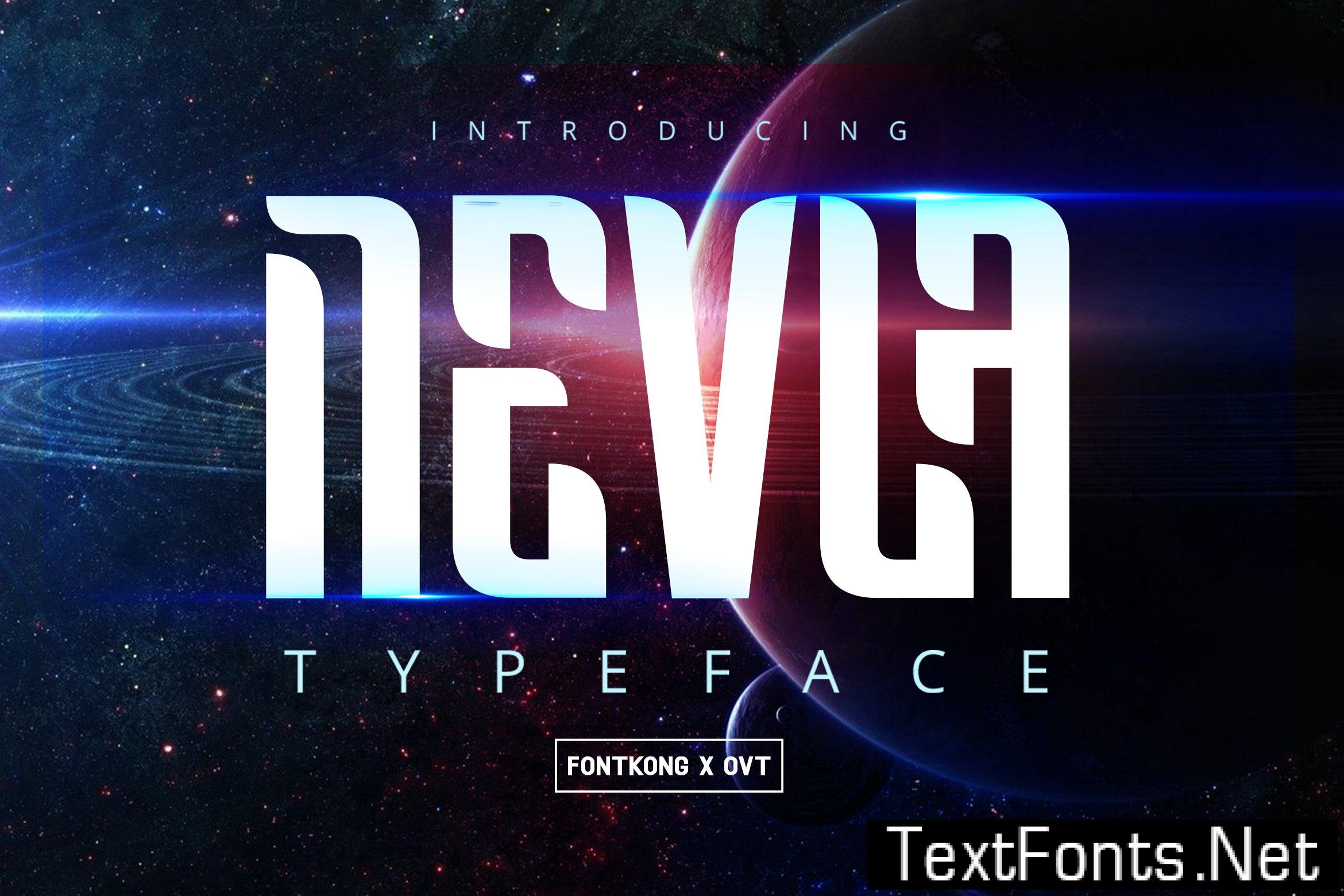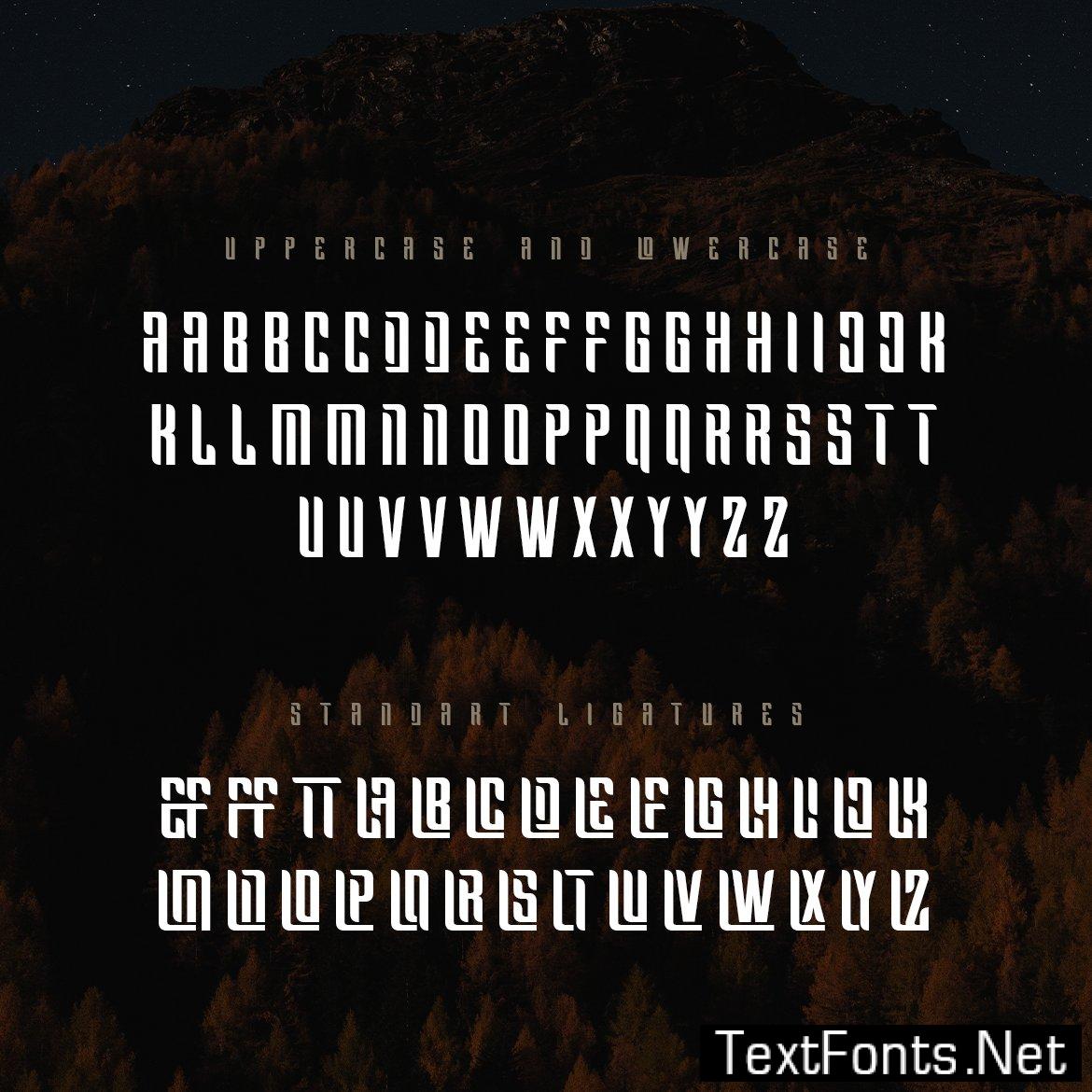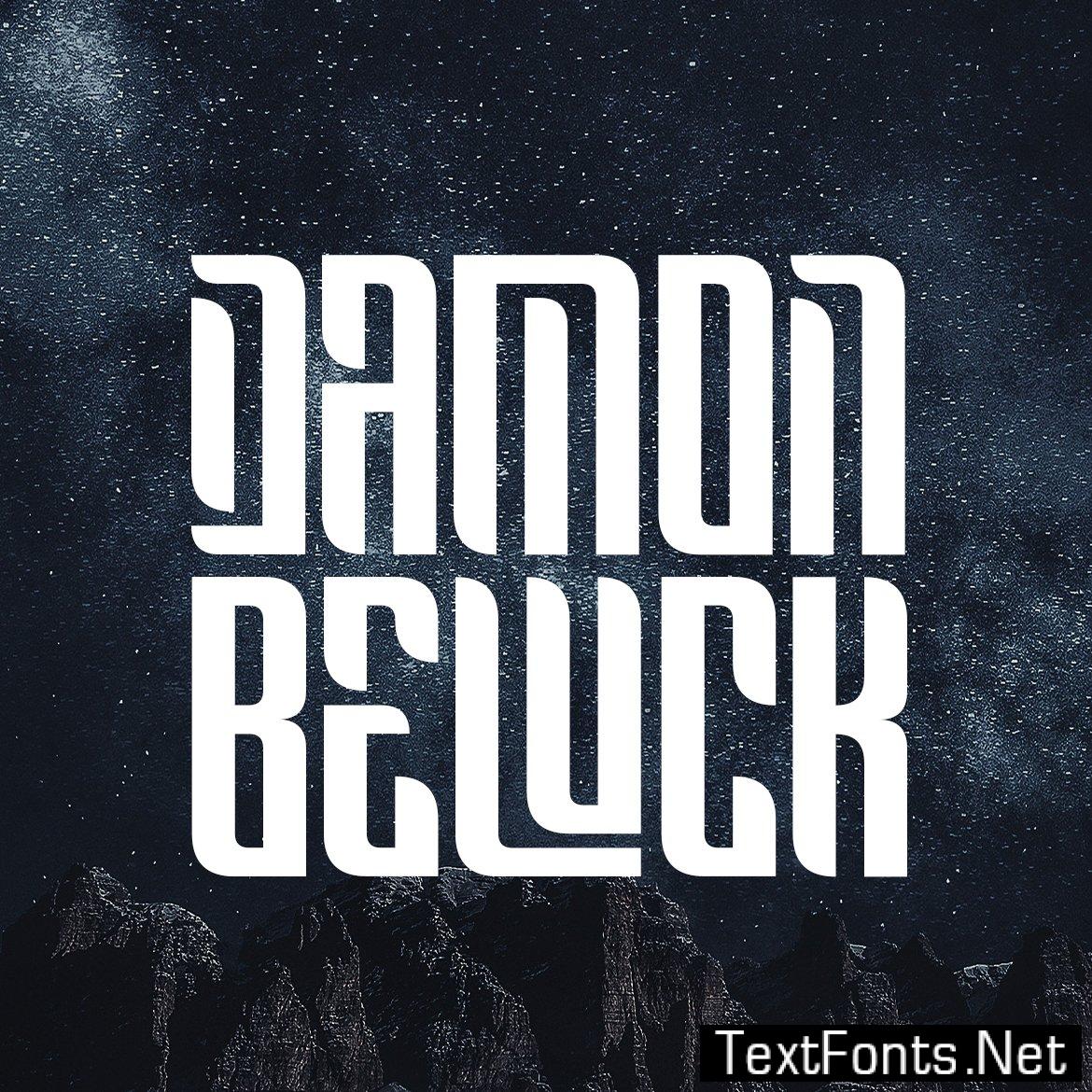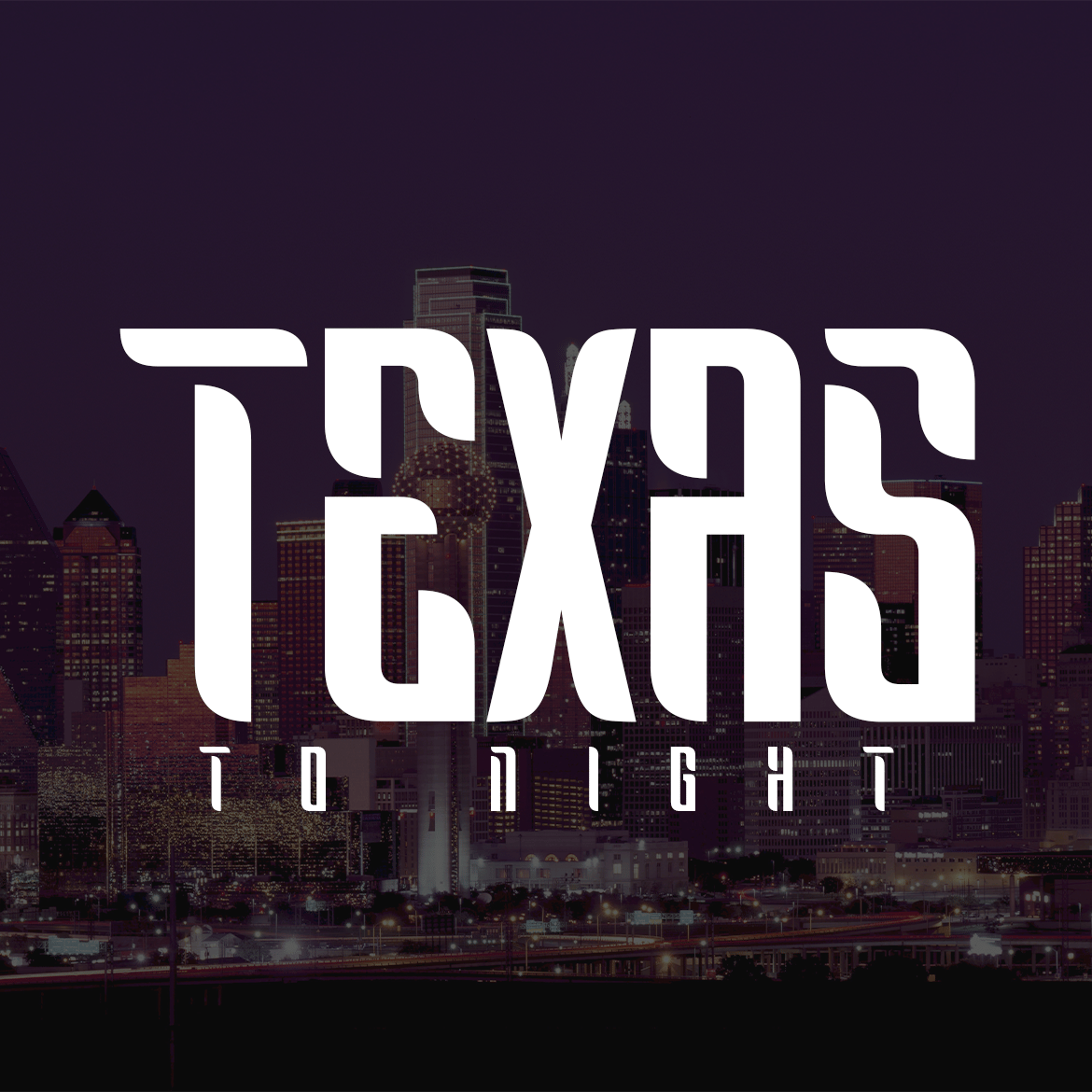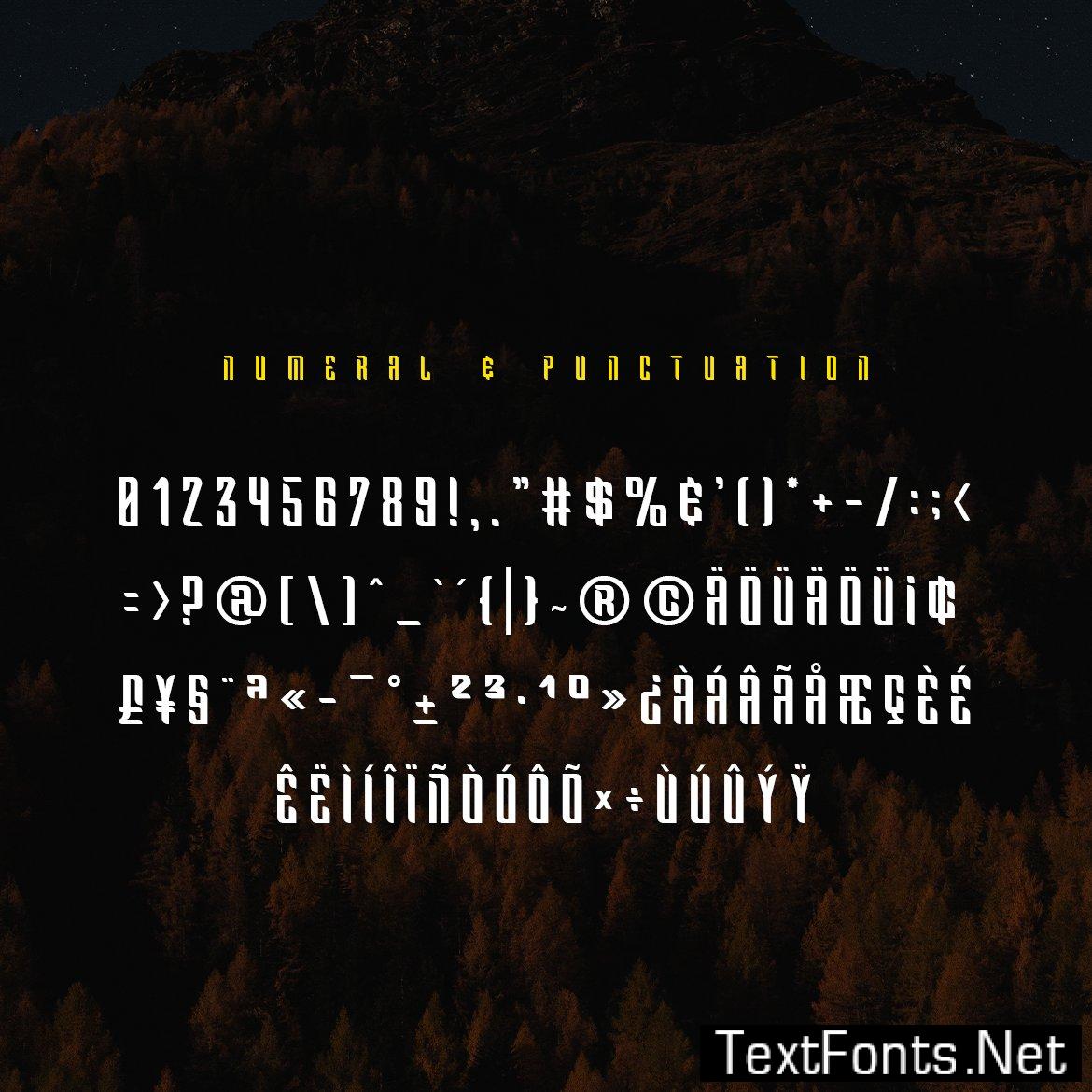
**Nevla – A Versatile Typeface**
Nevla is a versatile and modern typeface designed to bring a clean and sophisticated look to your design projects. With its balanced letterforms and elegant style, Nevla is perfect for a wide range of applications including branding, editorial design, web typography, and print media. This font combines timeless design elements with contemporary aesthetics, ensuring your work stands out with clarity and elegance.
Crafted with attention to detail, Nevla features characters that offer excellent readability and visual harmony. Its adaptable design makes it suitable for both headlines and body text, providing a cohesive and polished appearance across all your visual communications. The font’s flexibility allows it to seamlessly integrate into various design contexts, from digital platforms to printed materials.
Elevate your design projects with Nevla, a font that embodies the perfect balance of tradition and modernity. Its unique style and adaptability make it an essential addition to any designer’s toolkit for creating refined and versatile visuals. Enhance your work with Nevla and experience the beauty of a truly adaptable typeface.